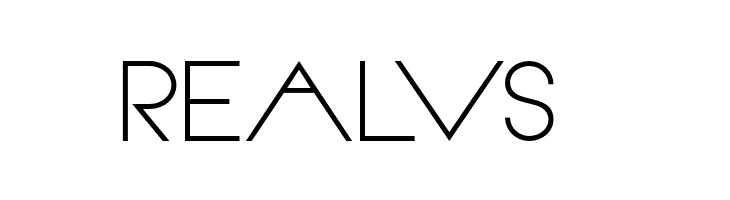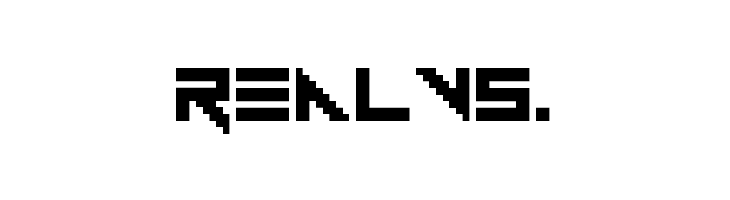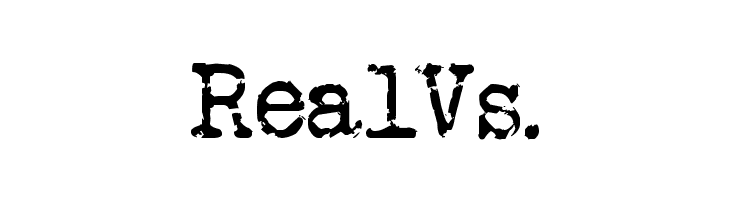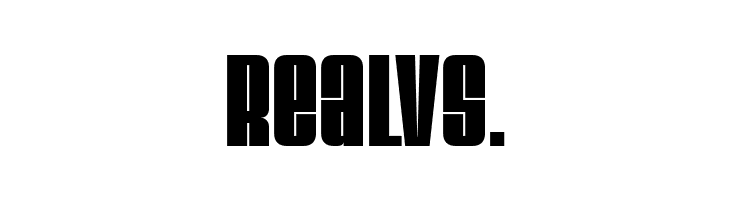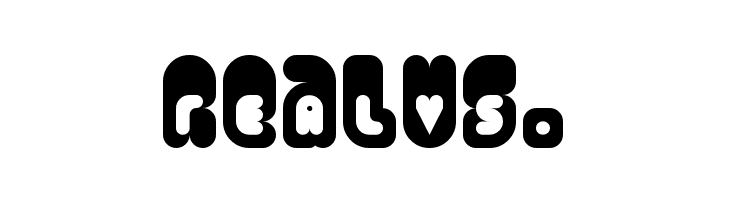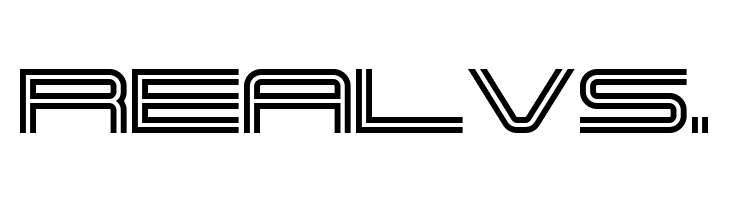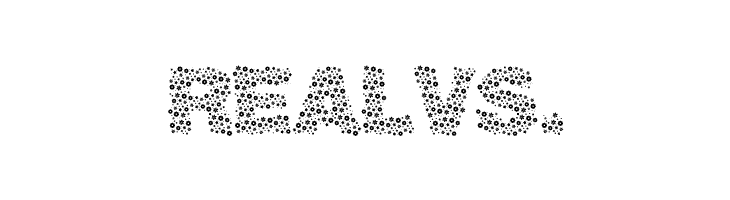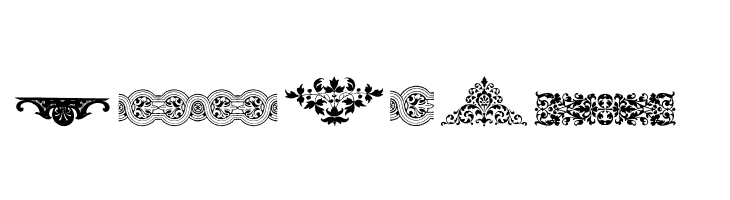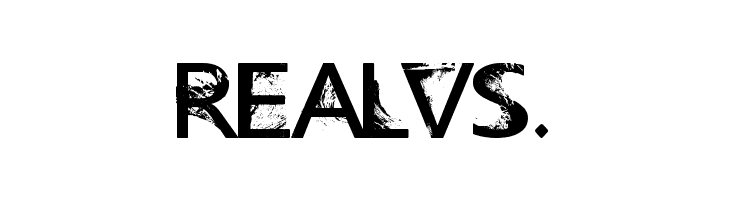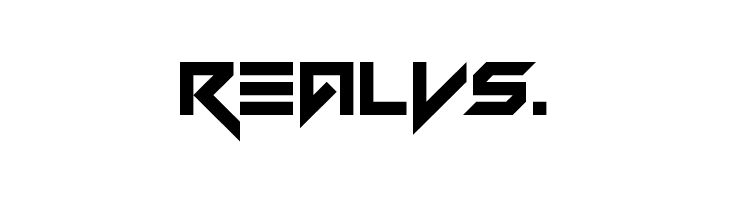
A serif font with a stitched, decorative outline for a crafty, vintage look.
A bold, decorative font with a stitched, handcrafted appearance.
A classic serif typeface with elegant curves and moderate contrast.
An expressive, calligraphic font with bold, sweeping strokes.
A rugged, textured font with a primitive, stone-carved appearance.
A geometric, stone-like font with bold, angular lines and a three-dimensional effect.
A bold, textured font with a rugged, stone-like appearance.
A bold, geometric font with a modern and impactful design.
A bold, textured font with a distressed, stormy appearance.
A whimsical, hand-drawn style font with bold, irregular strokes.
A playful, hand-drawn font with bold, rounded characters and a whimsical style.
An elegant open-face serif font with a classic yet modern appeal.
A classic serif font with elegant, sharp serifs and refined structure.
An elegant italic serif font with medium contrast and refined style.
A playful, handwritten-style font with a friendly and informal appearance.
A playful, casual handwritten font with irregular strokes and a dynamic feel.
A bold, playful font with a hand-drawn aesthetic and high contrast.
A bold, expressive handwritten font with dynamic strokes and a casual feel.
A modern, geometric sans-serif font with consistent stroke width and clear readability.
A bold, geometric font with a futuristic, angular design.
A bold, geometric font with hollow interiors and a futuristic style.
A bold, geometric font with sharp angles and a modern aesthetic.
A modern, geometric font with bold lines and a futuristic style.
A distressed, sketch-like font with a rustic, hand-drawn aesthetic.
A hand-drawn, sketch-like font with rough, edgy strokes.
A playful, hand-drawn font with a whimsical and casual style.
A playful, strawberry-themed decorative font with a hand-drawn style.
A bold, angular font with sharp, geometric edges for a modern, edgy look.
A gritty, urban font with a distressed, graffiti-inspired style.